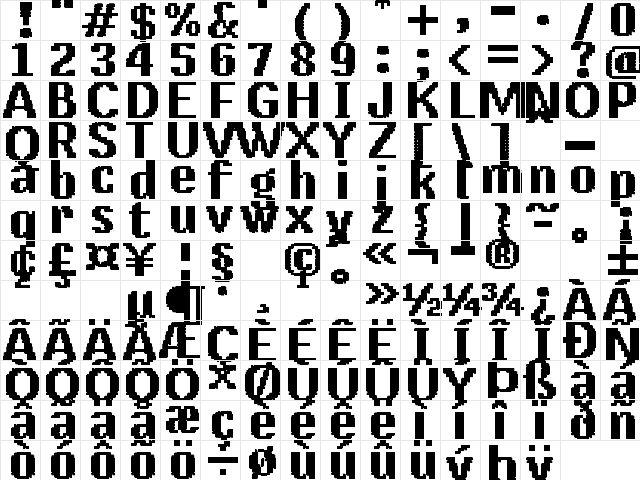
UF Mana-16alt Regular
| Foundry | Ultrafonts |
| Designer | Hrant Papazian |
Design Context for UF Mana-16alt Typeface
UF Mana-16alt is a composed and adaptable typeface that performs quietly and consistently across a wide range of design contexts.